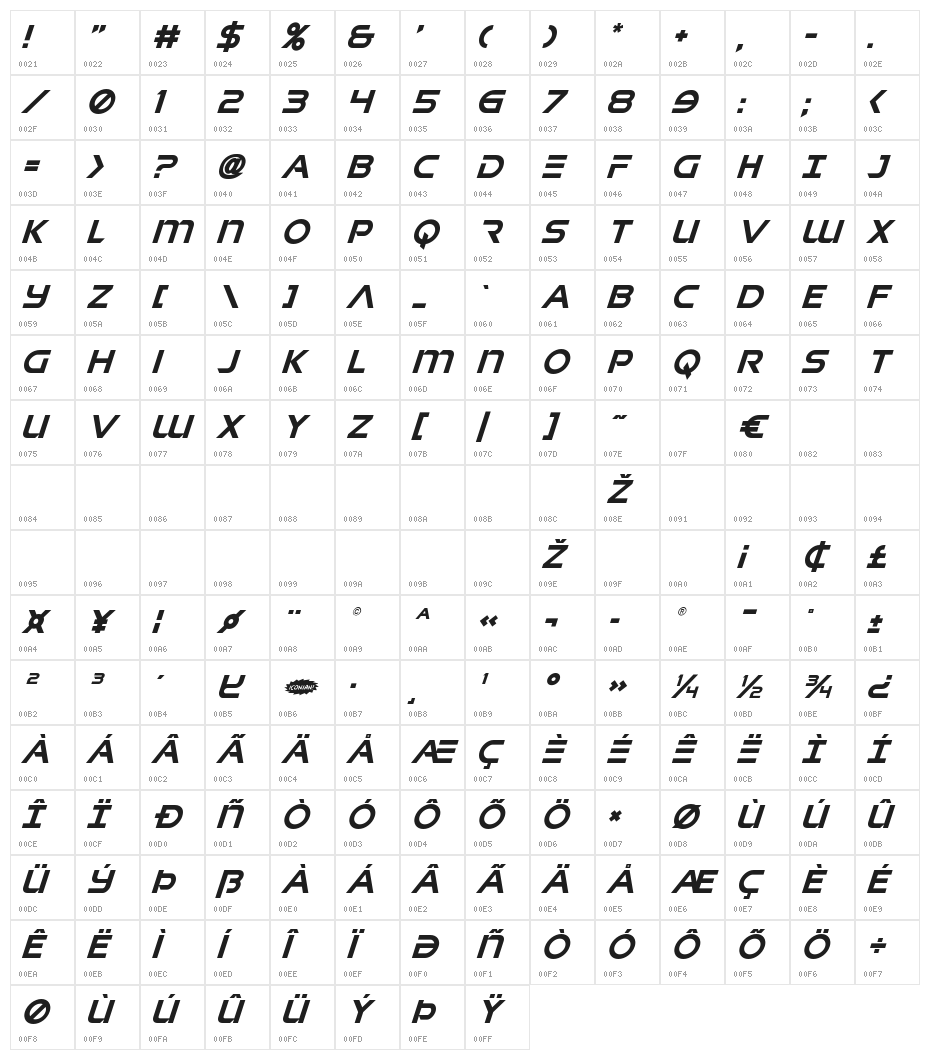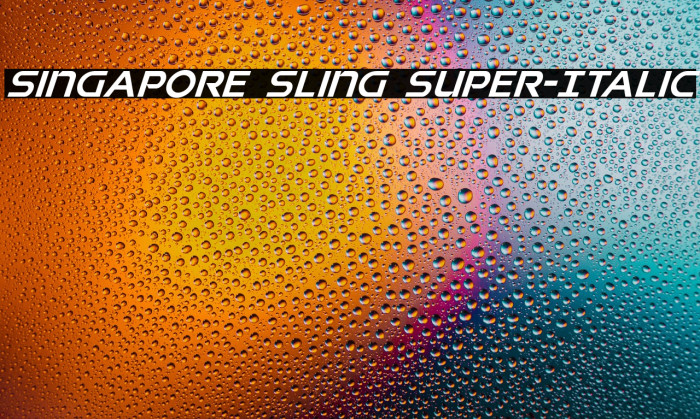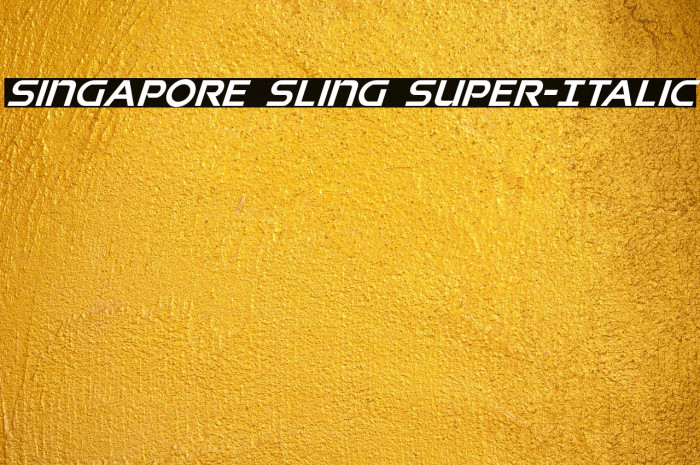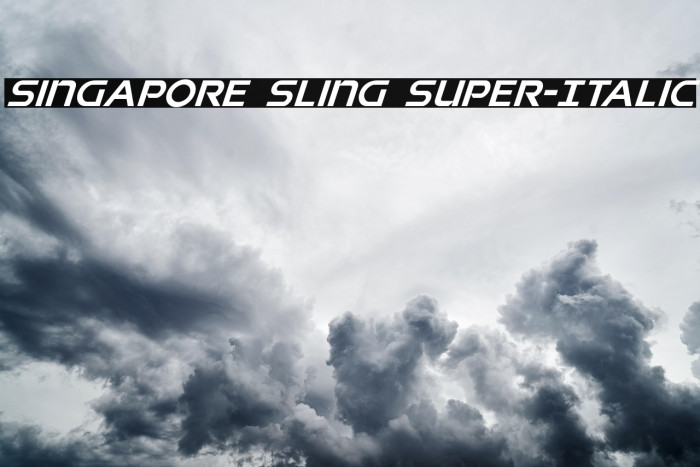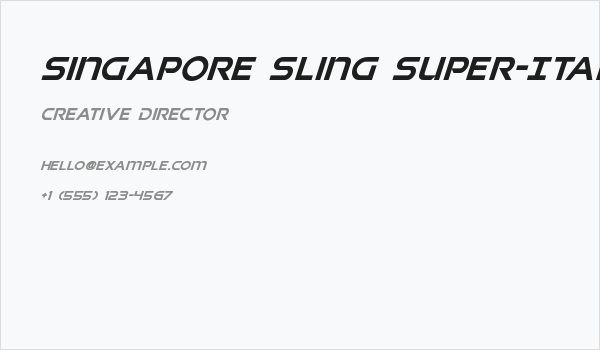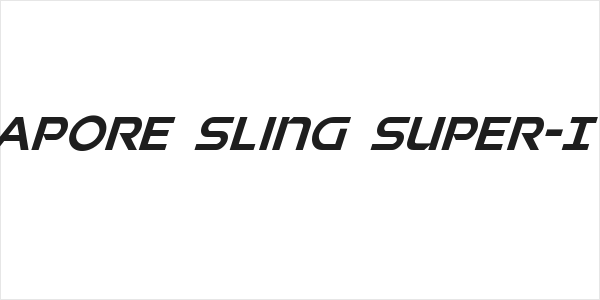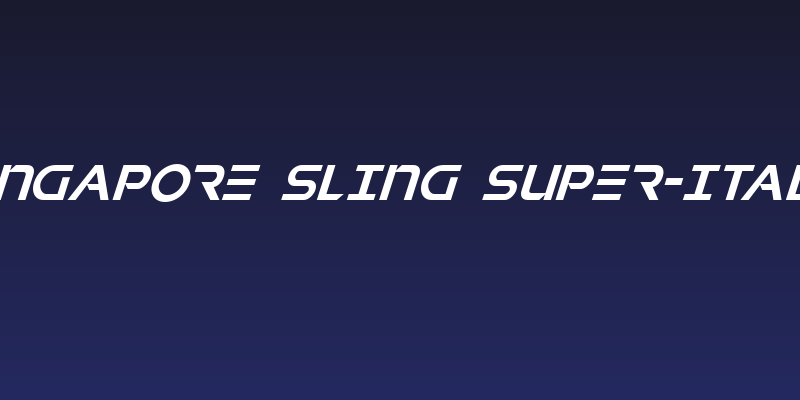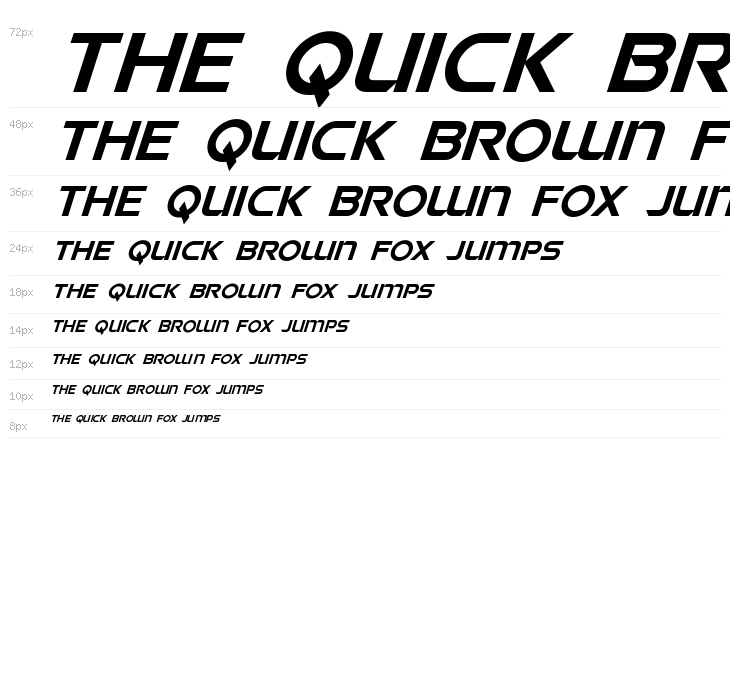
Singapore Sling Super-Italic Font
Singapore Sling Super-Italic Description
This font features a dynamic and modern design with a strong italic slant, giving it a sense of motion and energy. The characters are bold and slightly condensed, with unique angular cuts and sharp edges that enhance its contemporary feel. The uppercase and lowercase letters maintain a consistent style, while the numerals and special characters complement the overall aesthetic. The font's sleek and futuristic appearance makes it suitable for projects that require a bold and impactful visual statement.
| Use Case | Logos, Headlines, Branding |
| Proposed Projects | Ideal for branding, sports team logos, technology-related designs, and modern advertising campaigns. |